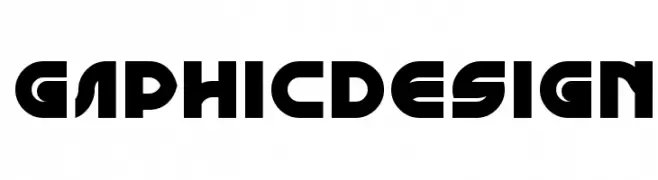
A bold, geometric sans-serif font with strong, modern letterforms.
A bold, tall serif font with a modern twist and strong vertical emphasis.
A decorative symbol font with diverse cross and X-shaped glyphs.
A display font composed entirely of diverse cross and geometric symbols.
A futuristic, geometric font with angular lines and a modern aesthetic.
A bold, geometric font with angular shapes and a futuristic style.
A bold, decorative font with a 3D effect and intricate shading.
A bold, geometric font with a three-dimensional effect and modern style.
A modern, geometric font with clean lines and a minimalist aesthetic.
A bold, striped font with geometric shapes and a modern, dynamic style.
A bold, geometric font with sharp angles and a modern, dynamic style.
A bold, geometric font with sharp angles and modern design.
A decorative, striped uppercase font with a modern, geometric style.
A bold, three-dimensional font with a shadow effect and textured interior.
A bold, decorative font with a 3D effect and dotted inner detailing.
A bold, decorative font with a three-dimensional effect and intricate detailing.
A whimsical and playful font with hand-drawn, irregular strokes.
A lively, expressive handwritten font with dynamic strokes and playful characteristics.
A bold, 3D geometric font with halftone shading and a strong visual impact.
A modern, geometric font with thin, uniform strokes and a minimalist design.
A modern, geometric sans-serif font with clean lines and balanced spacing.
A modern, rounded font with consistent stroke width and geometric shapes.
A modern, bold, and italicized font with consistent stroke thickness and a sleek design.
A modern, elegant script font with a slight slant and fluid, connected characters.
A modern, hollow, geometric font with consistent stroke width.
A hollow, geometric font with a modern and minimalist design.
Bold, italicized font with outlined characters for a dynamic, modern look.
A modern, cursive font with a handwritten style.
A bold, heart-themed decorative font with a playful and romantic style.